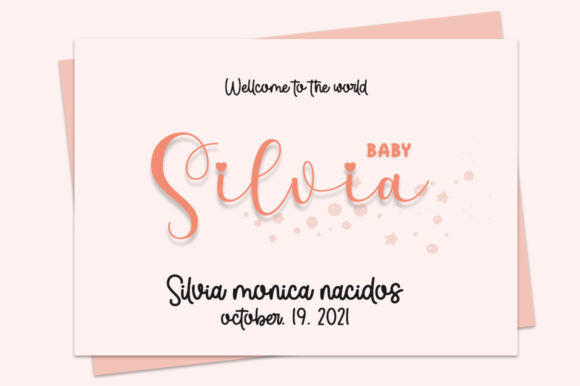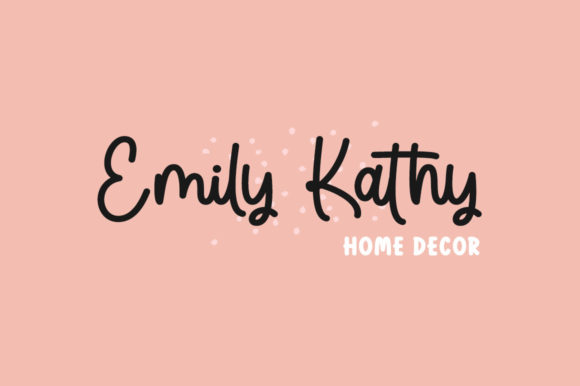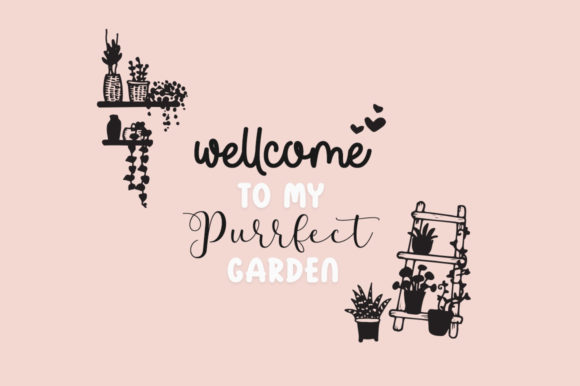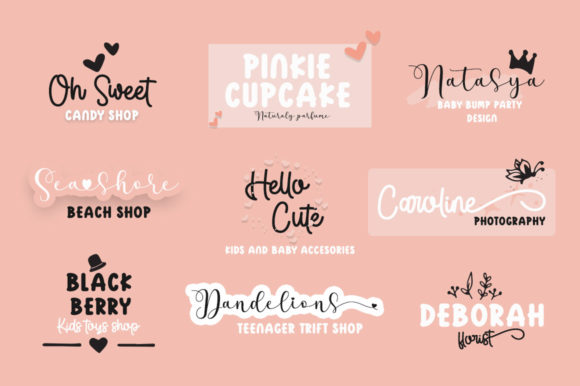
Discover the Secret to Spreading Joy with Fonts
There’s something magical about being in the midst of a creative project – the blank page, the endless possibilities, and the thrill of bringing an idea to life. You’re pouring your heart and soul into it, and suddenly, the right font appears, and it all clicks. That’s exactly what happened when I stumbled upon the Always Smiling Font trio, designed to bring a smile to every design.
This charming trio of fonts is crafted to complement each other perfectly, whether used together or separately. The Always Smiling Font is PUA encoded, making it effortless to access all the glyphs and swashes, giving you the freedom to get creative. As a designer, you’ll appreciate the versatility and elegance it brings to your projects, adding a chic and cheery touch that’s sure to delight.
Always Smiling Font Key Features
- Font Family: Always Smiling, a unique and playful font designed to evoke a sense of happiness and friendliness.
- Unique Characteristics: Features a distinctive and irregular letterform design, with varying stroke widths and rounded edges, giving it a friendly and approachable feel.
Always Smiling Font Review
Overall, I think the Always Smiling Font is a lovely addition to any design project. ✨ The friendly and approachable nature of the font makes it perfect for branding, social media, and other applications where you want to convey a sense of warmth and approachability.
- ✨ Friendly and approachable feel: The Always Smiling Font is designed to make the reader feel at ease, which is perfect for applications where you want to build trust and rapport with your audience.
- ✨ High legibility: The font is easy to read, even at smaller font sizes, making it perfect for body text and other applications where readability is crucial.
- ✨ Versatile: The font comes in a range of weights and styles, making it perfect for use in a variety of contexts, from headings to body text.
- ⚠️ Limited expressiveness: While the Always Smiling Font is perfect for conveying a sense of warmth and approachability, it may not be the best choice for applications where you want to convey a sense of sophistication or elegance.
- ⚠️ Not ideal for small text: While the font is highly legible, it may not be the best choice for very small text sizes, where the letterforms may become difficult to read.
In terms of overall impression, I think the Always Smiling Font is a great choice for designers who want to create a sense of warmth and approachability in their designs. While it may not be the best choice for every application, it’s a versatile and highly legible font that’s sure to please.
Tips: Use Always Smiling Font for social media graphics, invitations, and other fun designs. Experiment with different font combinations to create a unique look.
Tips: Use Always Smiling Font for logo designs, business cards, and other professional materials. Combine it with bold lines and bright colors to create a striking effect.
Tips: Use Always Smiling Font for presentations, reports, and other formal documents. Pair it with clear headings and concise text to create a professional look.
Always Smiling Font is ideal for:
- Social media graphics and invitations
- Logo designs and business cards
- Fun and creative designs